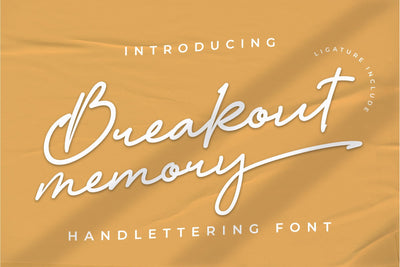
Breakout Memory Handlettering Font
Breakout Memory Handlettering Font is a signature design with a ligature that can enhance the quality of your designs.
+ Ligature